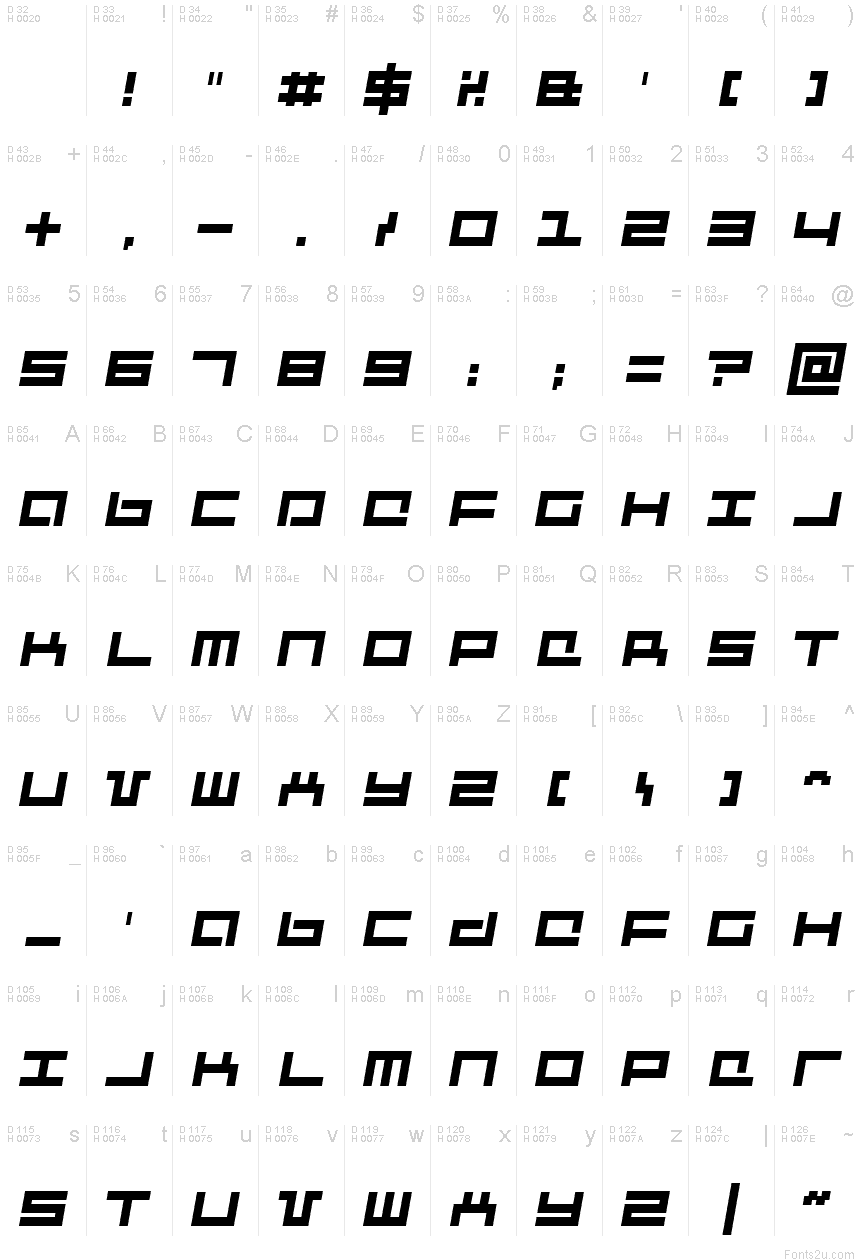
Mecha Italic
Mecha Italic by Andreas Nylin is a free techno display font driven by a fast, segmented rhythm of slanted rectangular forms and sharp right-angled turns. The lettering moves like a set of modular panels in motion, giving the design a mechanical cadence that feels closer to sci-fi interface graphics than to a generic italic display style.
That brisk, cut-piece structure makes sense on game titles, electronic music artwork, posters, stream graphics, and tech event branding where short words need a hard synthetic edge. It can also sharpen packaging or logo concepts that want an early-digital, machine-coded tone without drifting into rounded arcade nostalgia.